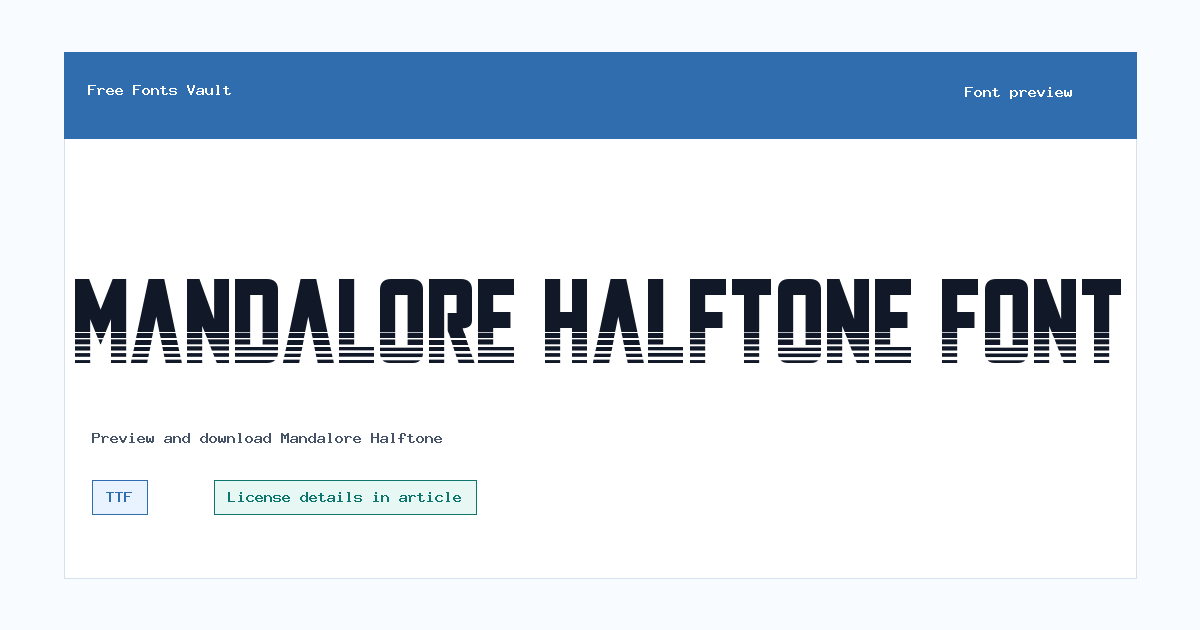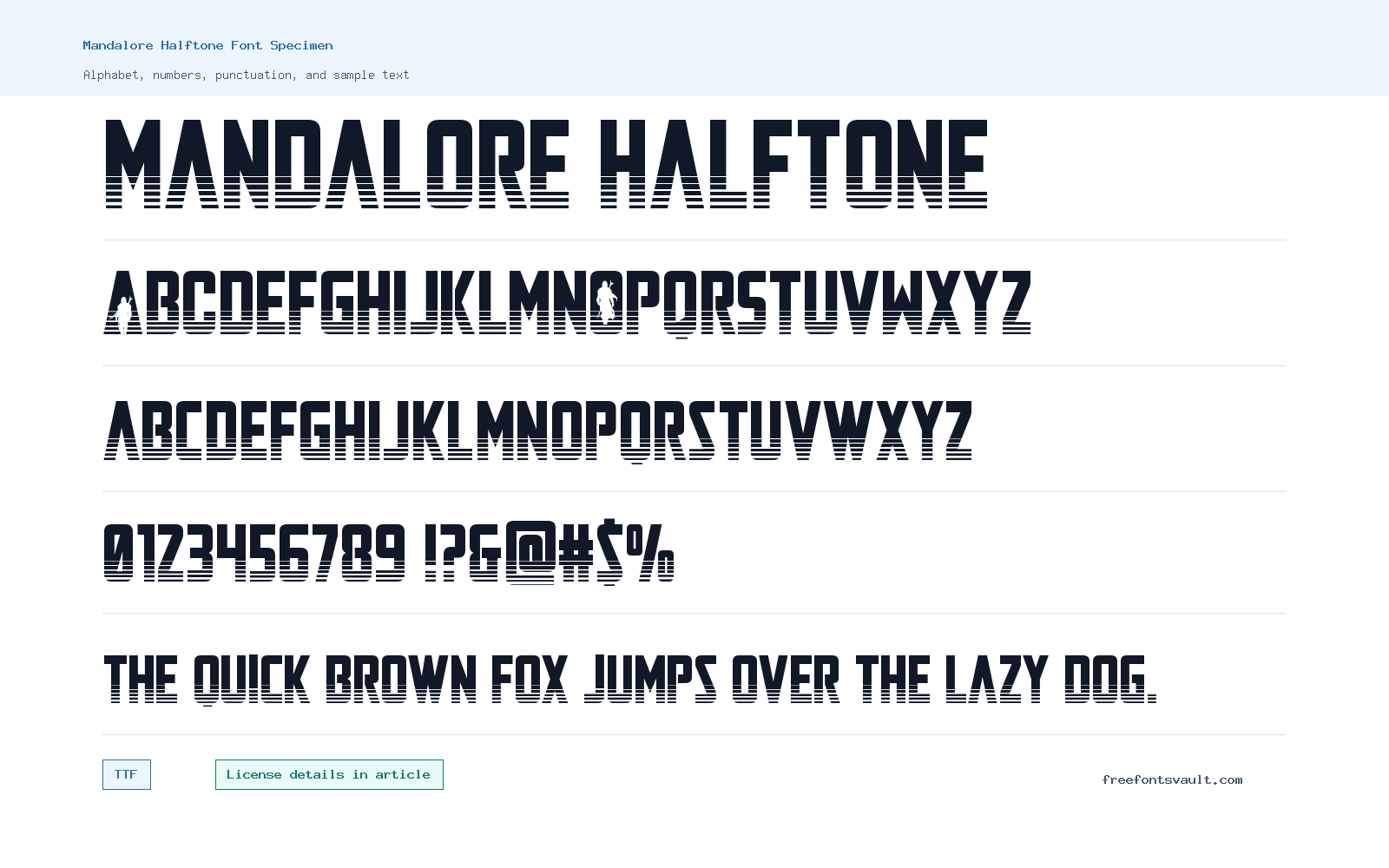
Mandalore Halftone
Mandalore Halftone font preview showing the family name
Mandalore Halftone Font
Mandalore Halftone font specimen showing alphabet, numbers, and sample text
Mandalore Halftone font.
Mandalore Halftone is a display font with a halftone-style identity built into its name, making it a better fit for bold titles than long reading text.
About Mandalore Halftone
Mandalore Halftone is a display font that can work well when the design needs a bold, textured, sci-fi, game, or poster-like mood. The halftone treatment is the main visual feature, so it is better for large words and titles than for dense information.
Use the preview to check how the halftone texture behaves in your actual phrase. Texture can look strong at large sizes but break down when the text gets small or the background is busy. Pair it with a clean sans-serif for descriptions, dates, captions, and interface text.
• Display-focused family name with a halftone treatment
• Poster titles, cover text, and short display headings
• Sci-fi, gaming, comic, or themed graphics where a textured title style is useful
Mandalore Halftone is credited to Daniel Zadorozny. A designer website is listed at icononian.com.
Is Mandalore Halftone good for body text?
It is better for short display text. Use another simpler font for paragraphs, captions, menus, or anything that needs quick reading.
Who designed Mandalore Halftone?
The font is credited to Daniel Zadorozny.